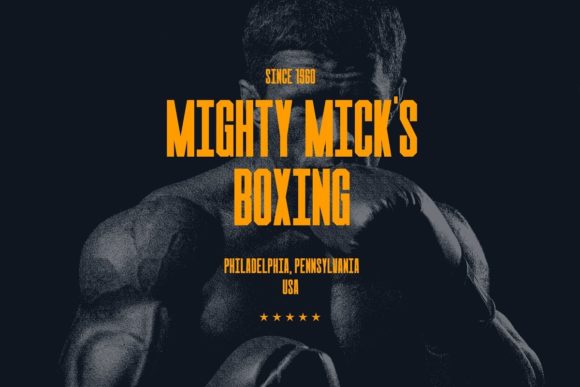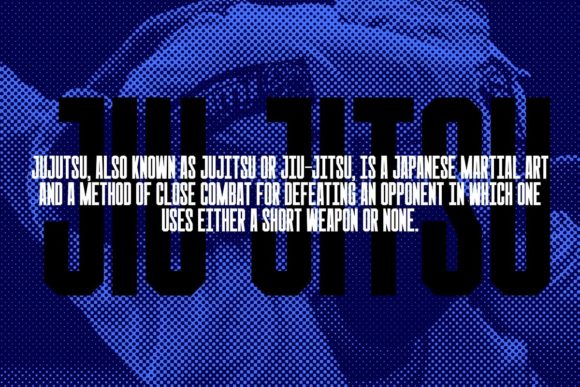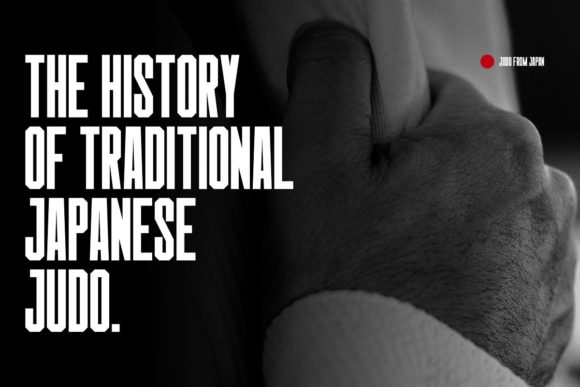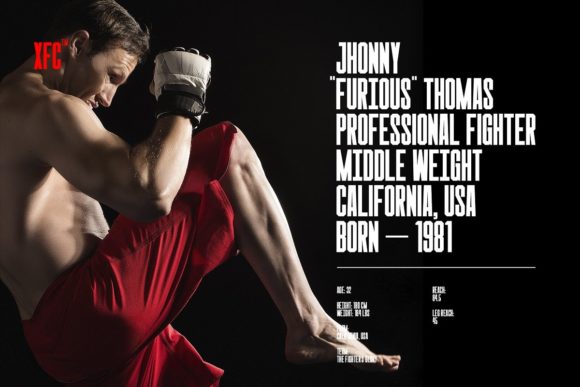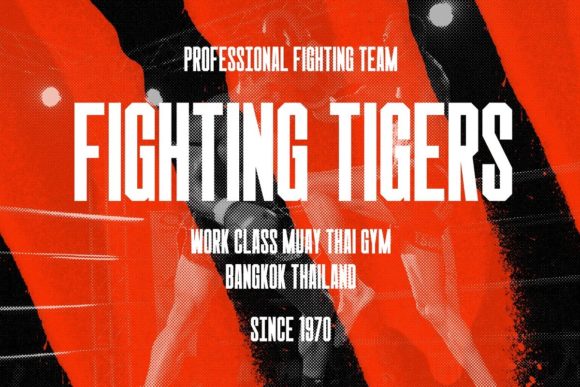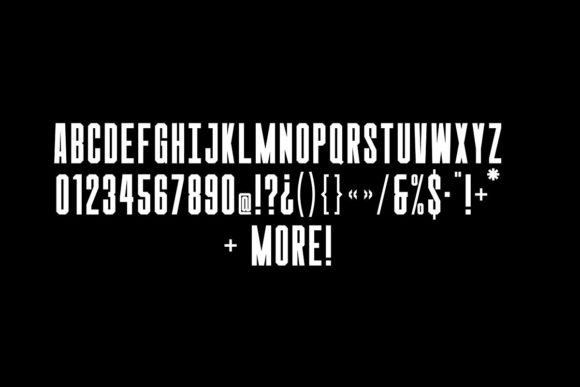
Introduction to Fighters Glory Font
Have you ever stared at a blank canvas, waiting for inspiration to strike, only to have a bold, eye-catching font suddenly pop into your head? That’s exactly what happened to me when I discovered the Fighters Glory Font. Its dynamic, confident vibe is the perfect addition to any design project, and I couldn’t wait to dive in and explore its possibilities.
As designers, we’re always on the lookout for high-quality design resources that can elevate our creative projects. The Fighters Glory Font is a game-changer, offering a free download option that’s perfect for experimenting with different designs. With its transparent background and versatile style, this font is a valuable addition to any design library.
Whether you’re working on a branding project, creating a promotional poster, or designing a website, the Fighters Glory Font is sure to bring a touch of assertive character to your work. Its bold, thick lettering is the perfect way to make a statement and grab attention. In this article, we’ll take a closer look at the Fighters Glory Font and explore its many uses in design.
Key Features of Fighters Glory Font
- Unique and bold design ideal for creative projects and gaming-related themes
- High-quality font with transparent background, allowing for versatility in design
- Perfect for use in digital art, graphic design, and typography projects
- Includes multiple font styles and weights to suit different design needs
Honest Review: Fighters Glory Font
I recently had the chance to work with the Fighters Glory Font, and I must say it’s a solid addition to any design resource collection. One of the things I appreciate about this font is its high quality and versatility. It’s perfect for creative projects that require a bold and edgy feel.
- ✨ The font’s high quality and crisp lines make it ideal for use on both screen and print.
- ✨ The Fighters Glory Font is incredibly versatile and can be used in a wide range of creative projects, from logos to titles and headers.
However, I did encounter a few limitations. The font’s transparent background can be a bit finicky to work with, and I found myself needing to adjust the opacity levels multiple times to get the desired effect.
- ⚠️ The font’s transparent background can be tricky to work with, especially if you’re not familiar with adjusting opacity levels.
Overall, I’d say the Fighters Glory Font is a great addition to any design resource collection. While it may have a few limitations, its high quality and versatility make it a solid choice for creative projects. With a bit of practice, you’ll be able to work with the transparent background like a pro.
To maximize the impact of the Fighters Glory Font, experiment with different font sizes, colors, and layering techniques. You can also pair it with other design elements, such as shapes and icons, to create visually striking graphics.
Common Use Cases for Fighters Glory Font
The Fighters Glory Font is perfect for various design projects, including posters, flyers, business cards, and social media graphics. Its bold and striking appearance makes it ideal for grabbing attention and conveying a sense of excitement and energy.
What is the recommended size for using Fighters Glory Font in a design project?
The Fighters Glory Font is a high-quality font that can be used at a wide range of sizes. For optimal readability, we recommend using the font at sizes between 12pt and 48pt. This will ensure that the font remains clear and legible, even in complex design compositions.